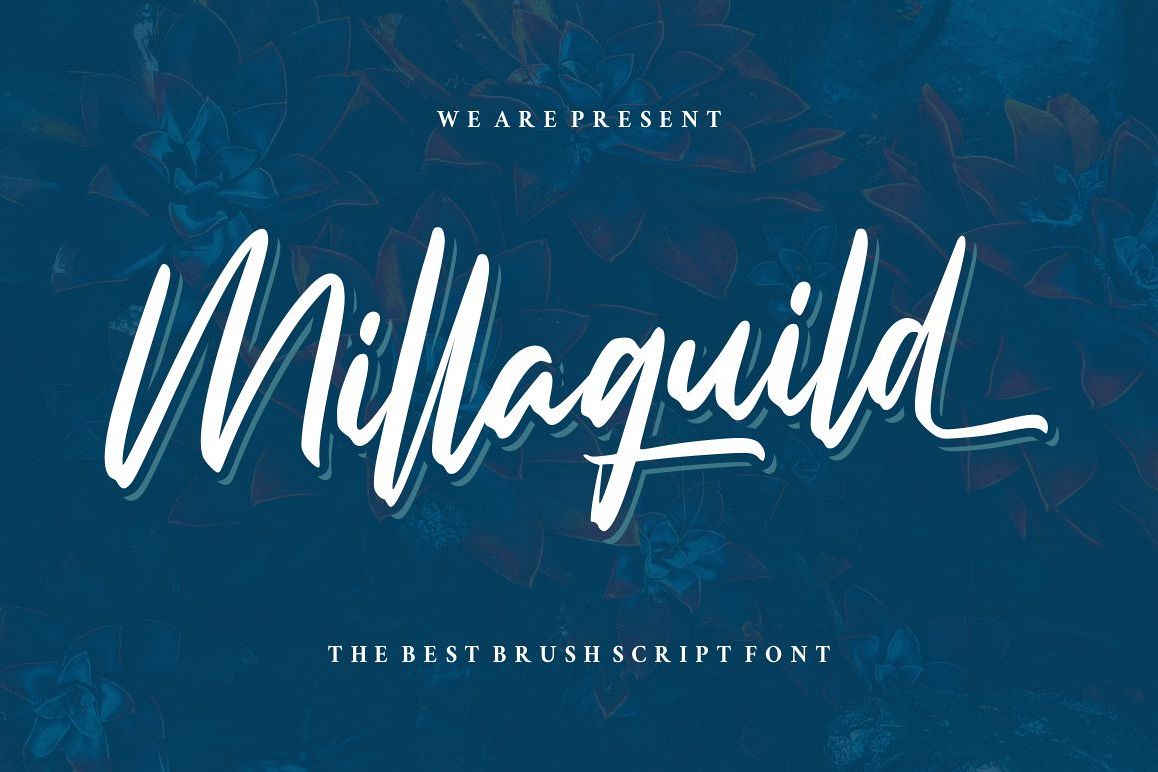
Millaguild Script
Introducing to Millaguild Script
Millaguild is attractive handwritten script, ideal for use in projects that need an organic and natural style. This font is great for logo, logotype, branding,wedding, fashion, label, book cover, t-shirt, instagram post, and other, and can add an elegant and classy look to your work.